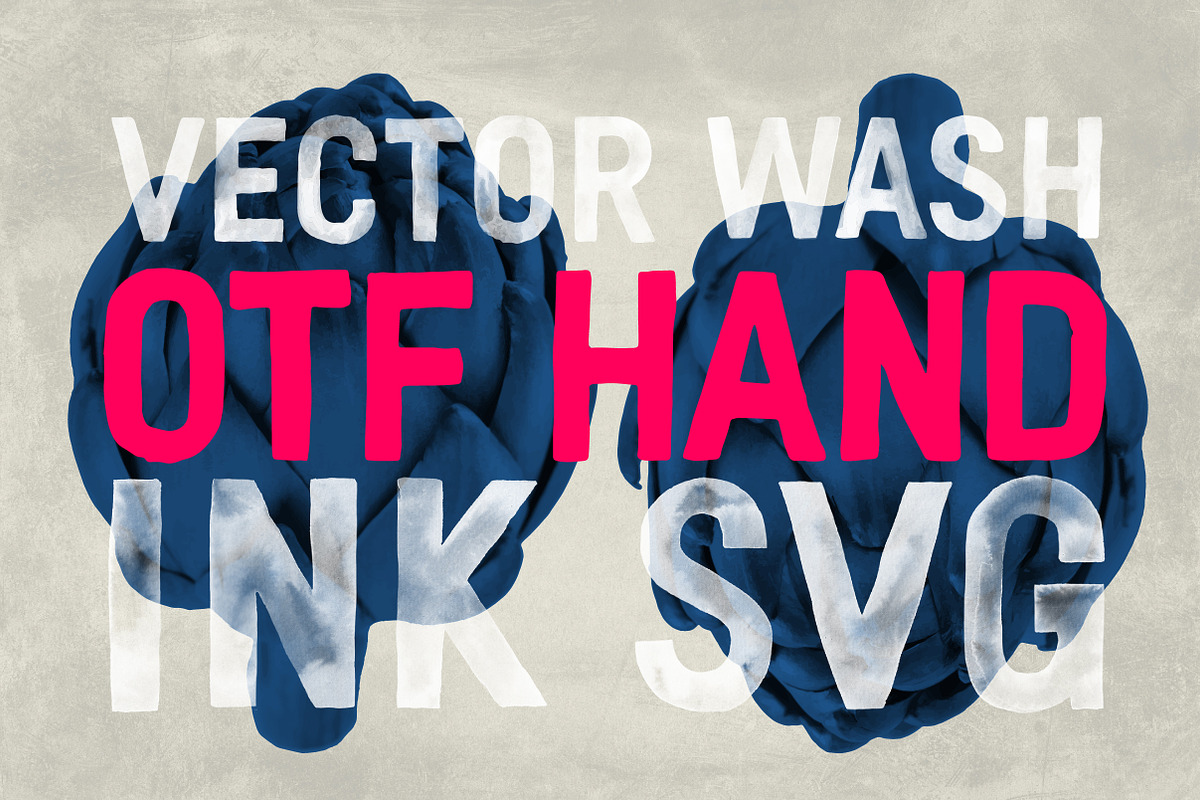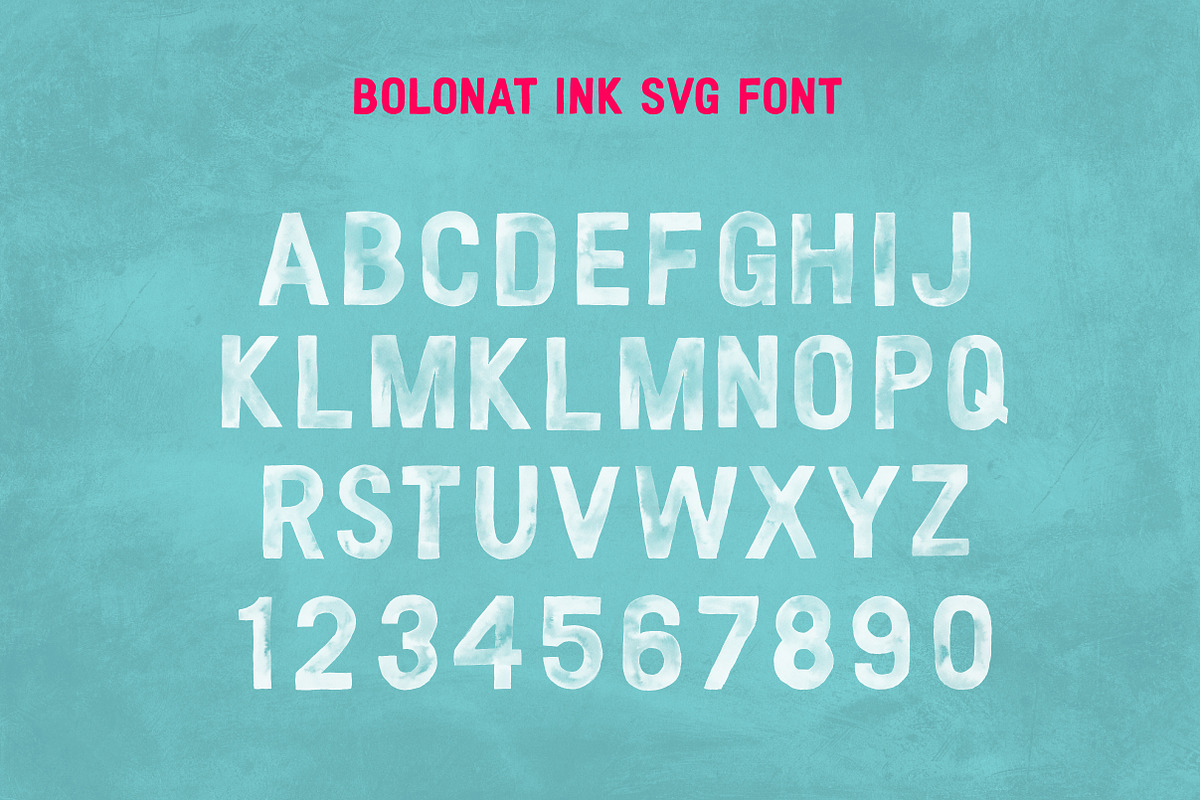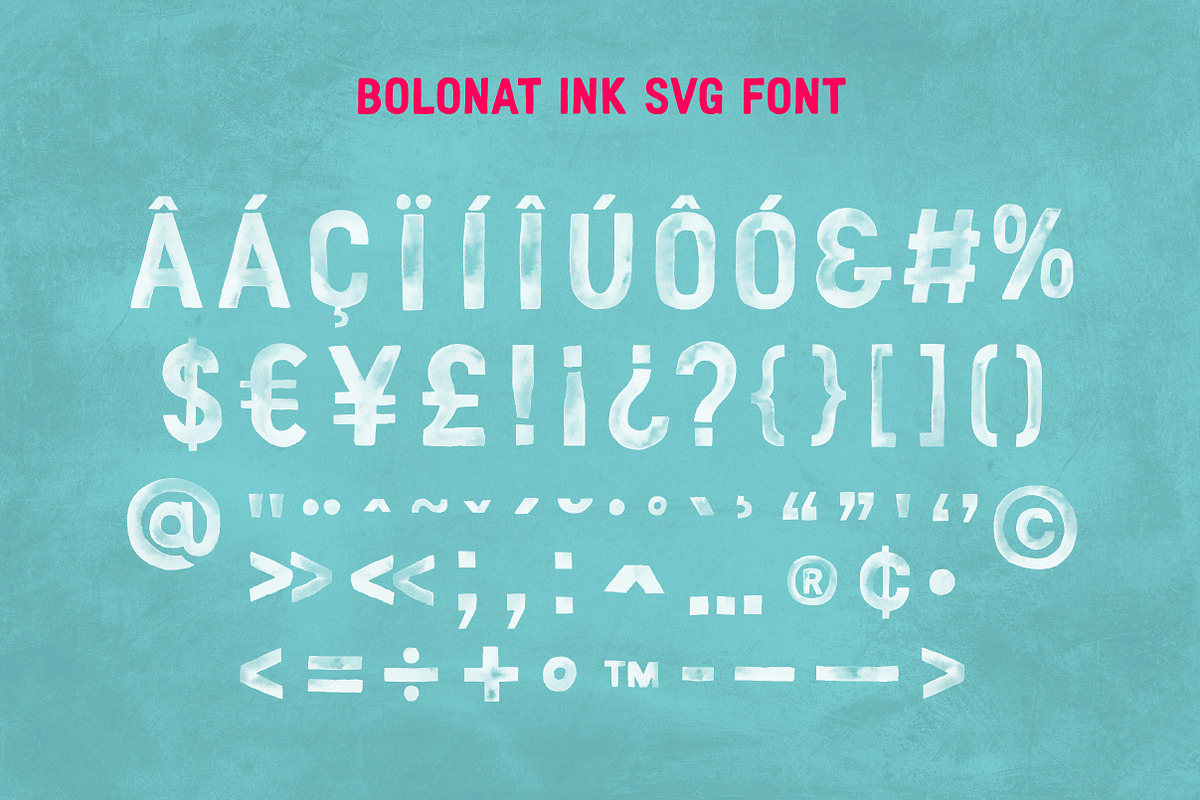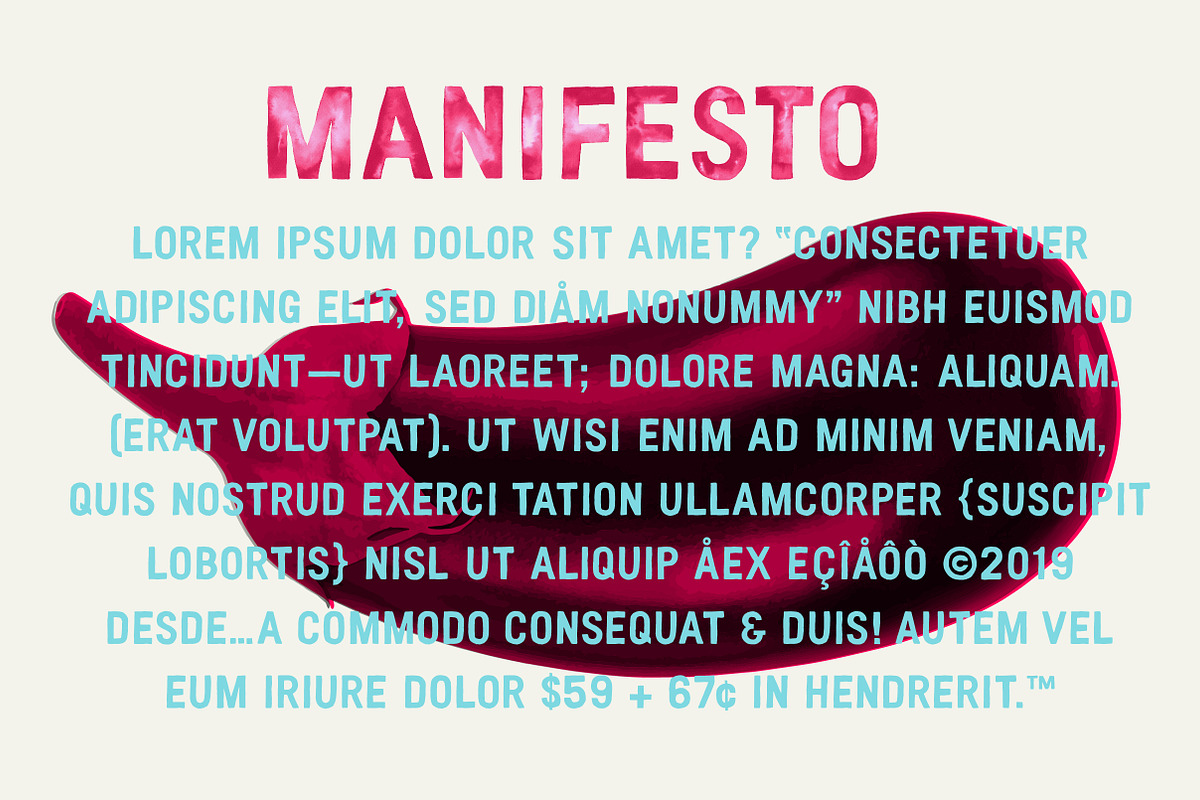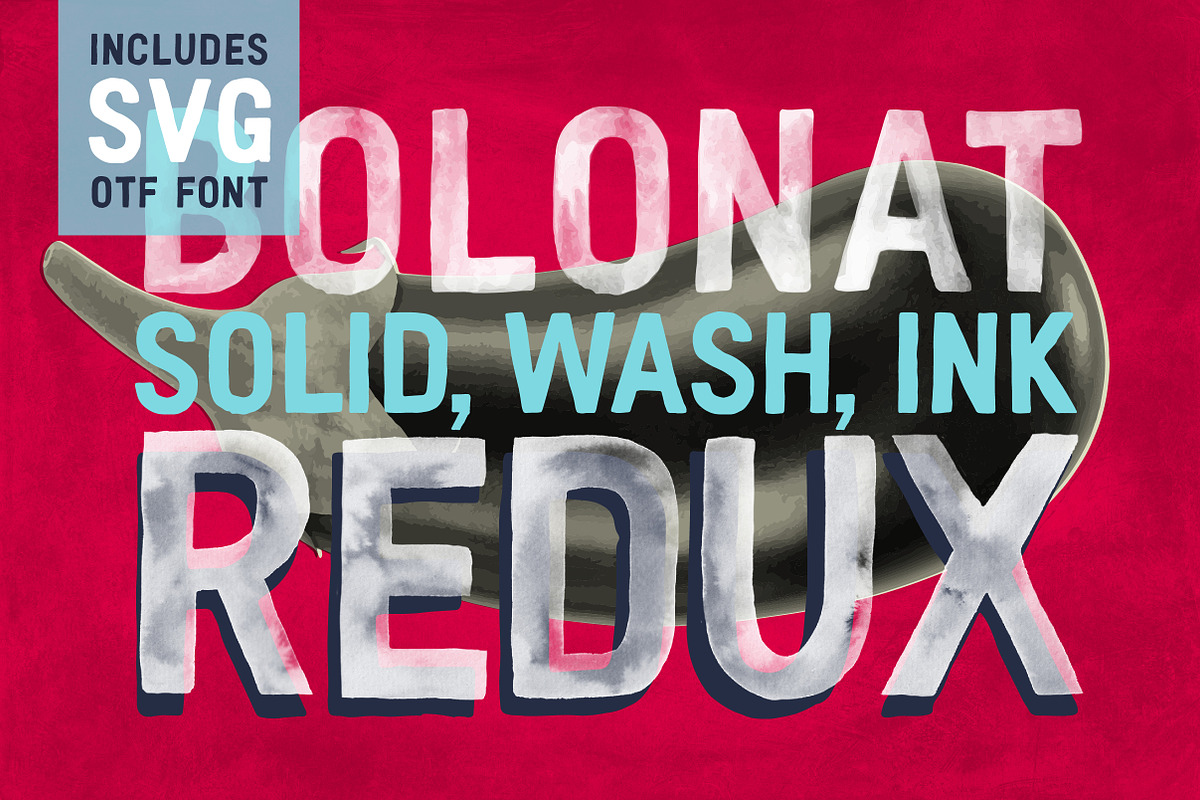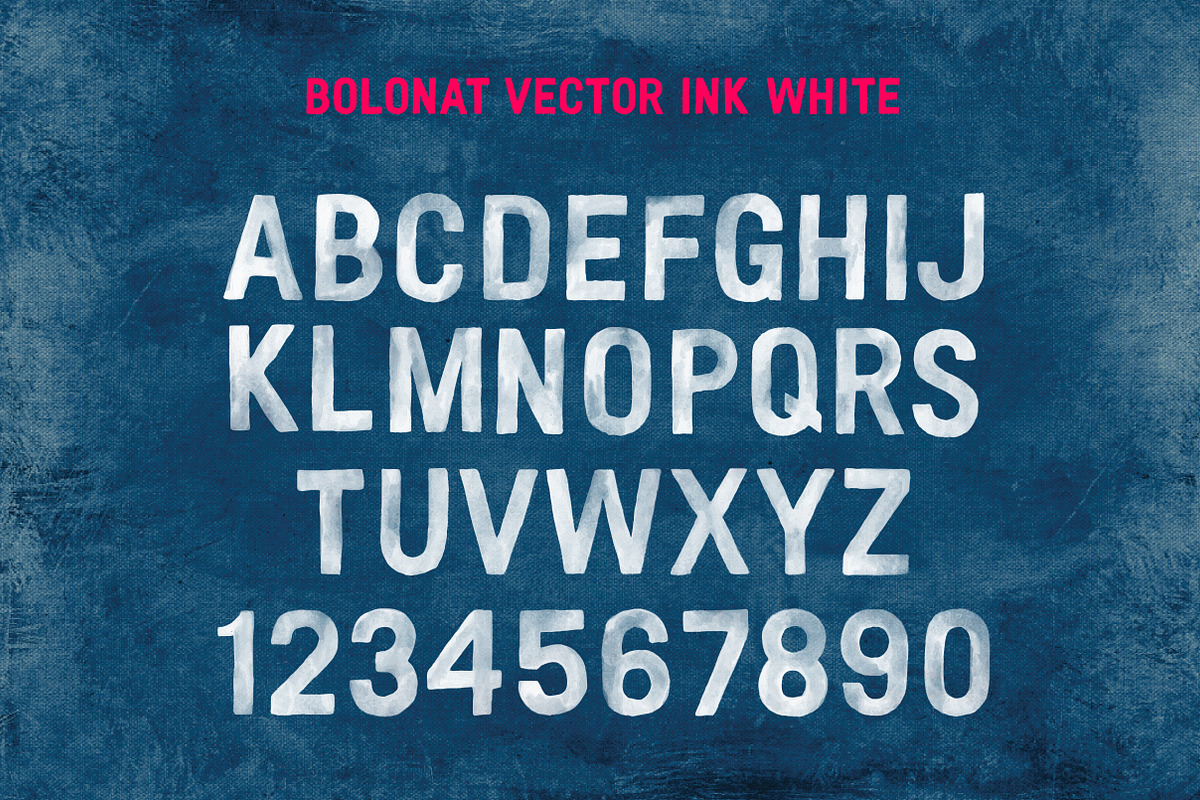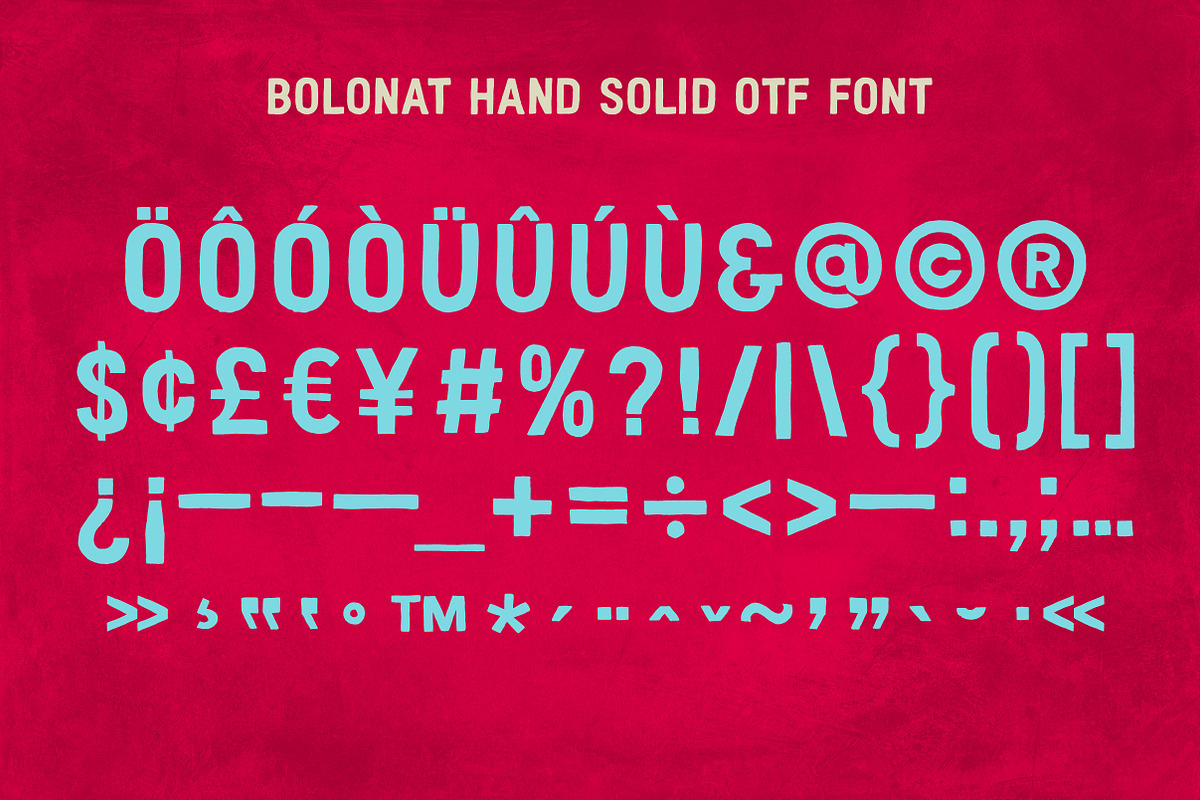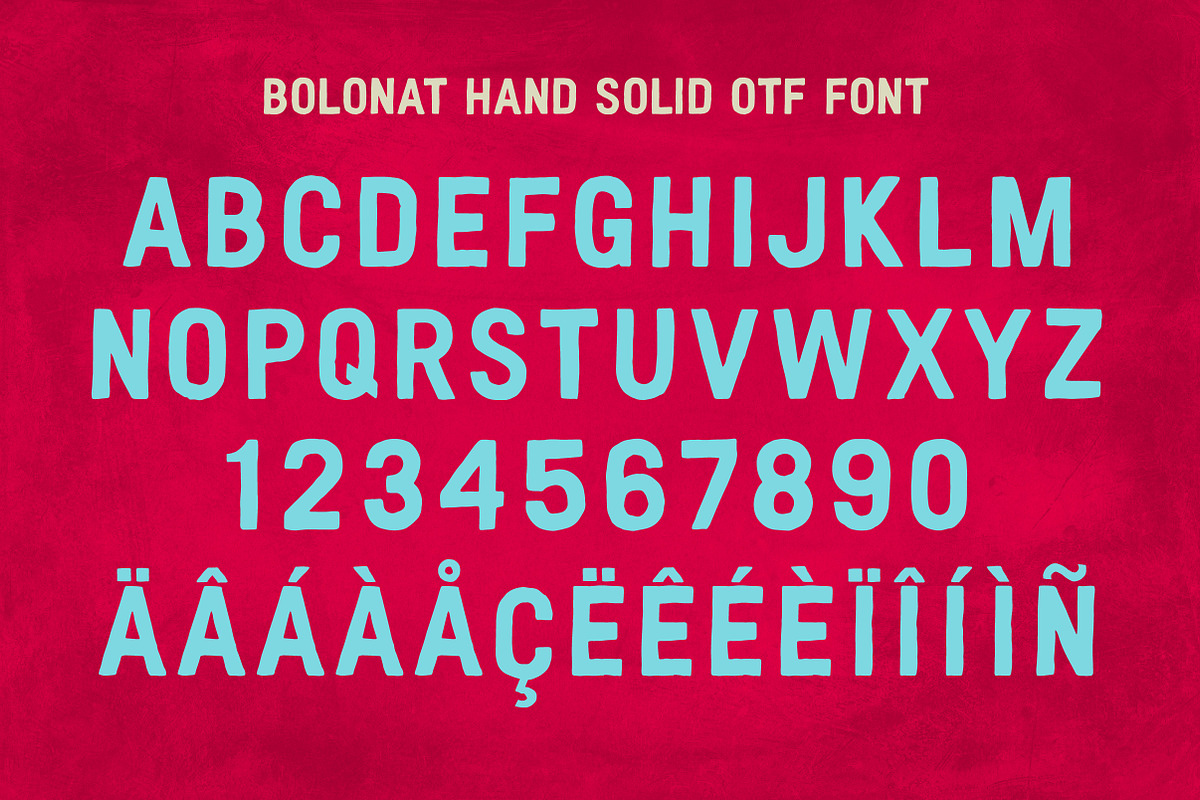
Bolonat Watercolor SVG & OTF fonts.
Bolonat Watercolor SVG & OTF fonts. by Lee Iley is a font selected for branding, posters, packaging, typography.
- Based on a hand-painted font I did for a restaurant in NYC, this Bolonat Redux package contains both the OTF Solid version and SVG Ink Versi
- (Included) INK - An SVG re-worked version of the original watercolor glyphs with Extended Diacritics and Punctuation.
- Pre-kerned and spaced, each glyph is user ready with a few characters needing kerning depending on end user preference.
- THE BOLONAT FAMILY: HAND - A solid version of the original watercolor glyphs with Extended Diacritics and Punctuation.